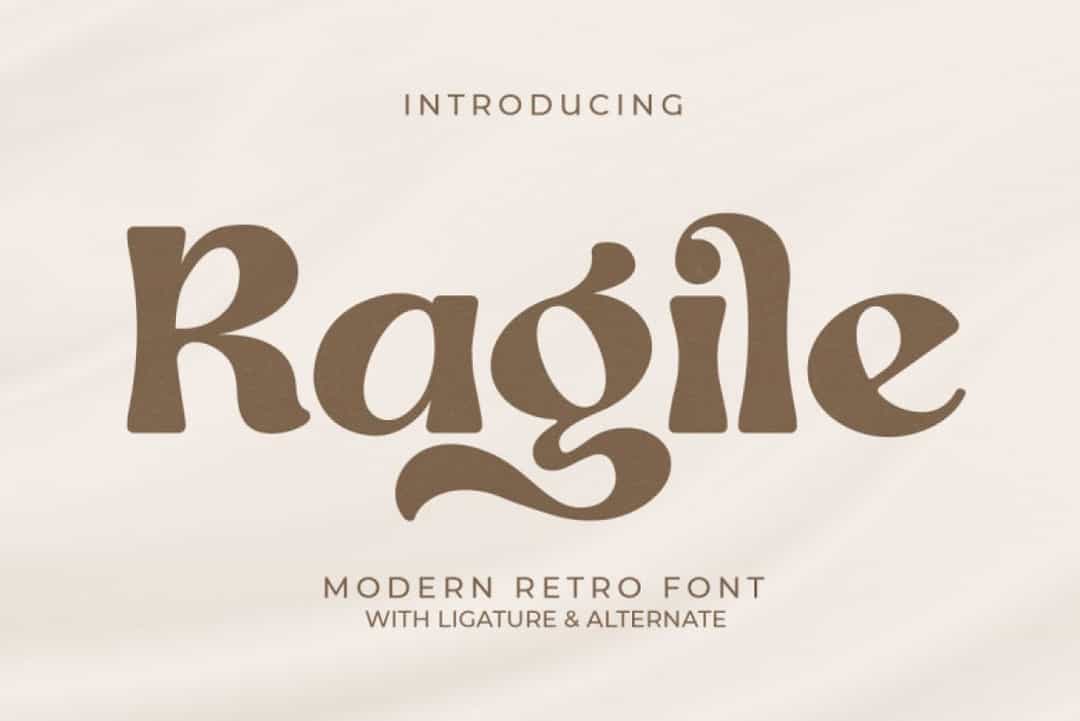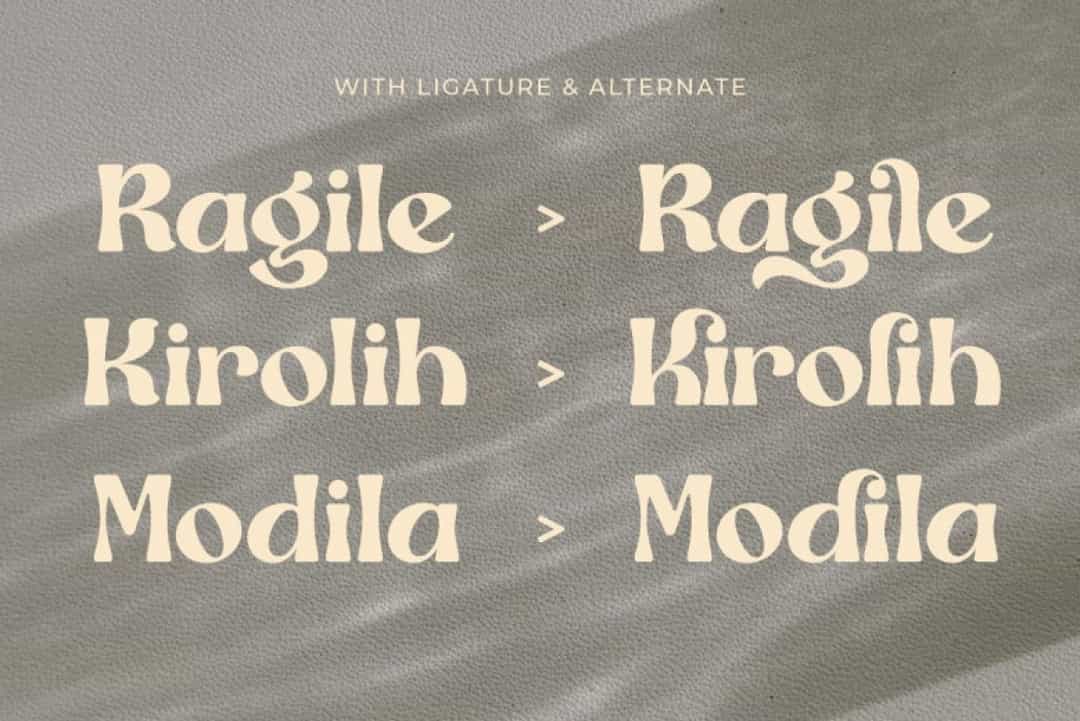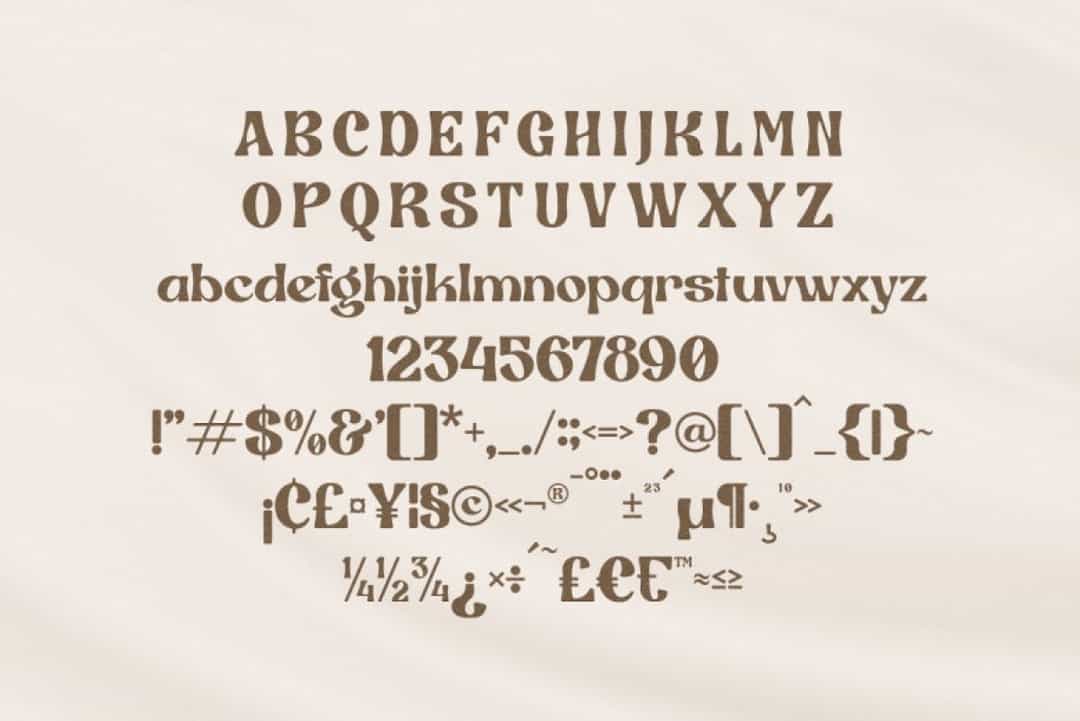
Ragile Serif Font was designed by Storytype and features both contemporary and classic serif features for maximum impact. Perfect for logos, movie or book titles, clothing brands, magazines letters quotes or any other use where sophistication and luxury is desired, such as movie posters. This typeface can also be found used as quotes in literature magazines etc.